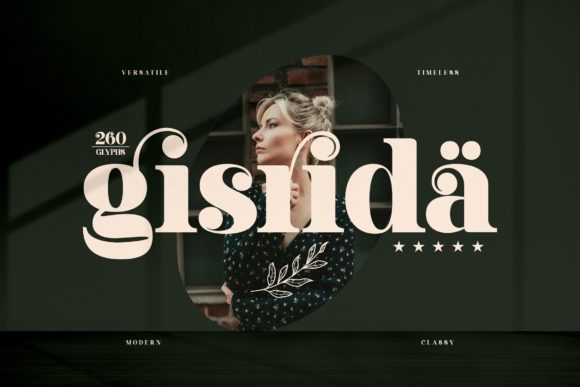
Step into the world of typography with Gisrida, a bold and captivating serif font that exudes sophistication and grace. Crafted by the renowned Storytype Studio, Gisrida boasts a collection of thick, stylish letters that command attention and leave a lasting impression.
With its PUA encoding, Gisrida grants you effortless access to a treasure trove of glyphs and swashes, empowering you to unleash your creativity and add a touch of elegance to your digital designs. Whether you're crafting logos, posters, or eye-catching headlines, Gisrida will elevate your projects with its timeless charm.
Imagine the impact of your app design when infused with the striking presence of Gisrida. Its bold strokes and impeccable curves will captivate your audience, creating a user experience that is both visually engaging and unforgettable. Gisrida's versatility extends beyond app design, seamlessly blending into branding, web design, and editorial projects, adding a touch of sophistication to every creation.
Indulge in the beauty of Gisrida and witness the transformation of your creative endeavors. Its timeless appeal and effortless elegance will leave you breathless, inspiring you to reach new heights of design excellence. Embrace Gisrida today and embark on a journey of typographic exploration that will redefine your design aesthetic.